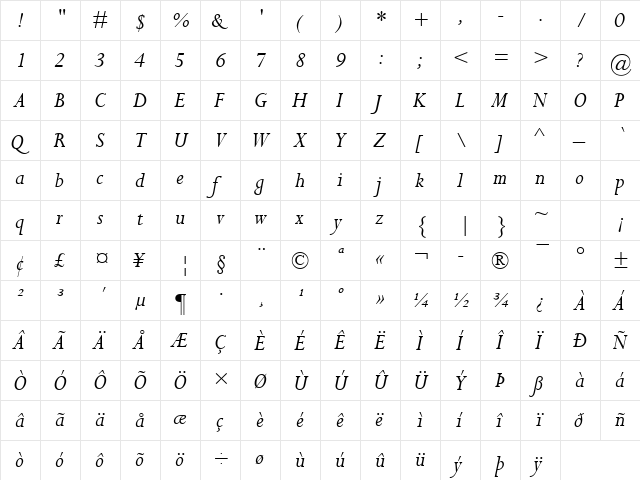
Perpetua MT Italic
Italic · Agfa Monotype Corporation Eric Gill ·
DesignerEric Gill
Design Context for Perpetua MT Typeface
Perpetua MT offers clean, dependable letterforms without strong stylistic allegiance, making it a practical choice for designers who need flexibility. The dynamic lean of this cut emphasises speed and emphasis in any layout.
Pro Tip: Try Perpetua MT for annotation and caption copy alongside an upright companion — the contrast in angle creates a dynamic but ordered typographic system.